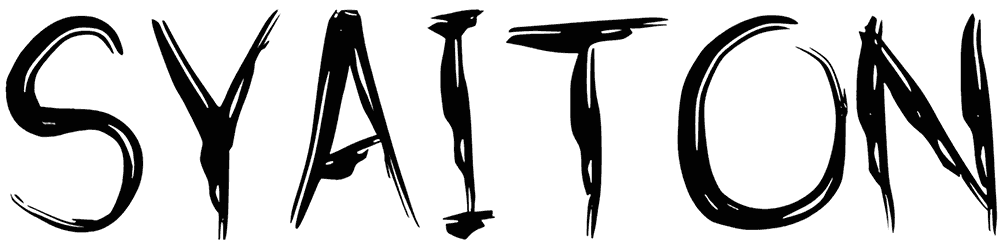
Syaiton Font
Let’s bring an evil and sinister mood to your dread layout with Syaiton. This horror font has an eerie brush lettering face that can convey a deadly and stressful vibe. This brush font doesn’t consist of lowercase letter…
Let’s bring an evil and sinister mood to your dread layout with Syaiton. This horror font has an eerie brush lettering face that can convey a deadly and stressful vibe. This brush font doesn’t consist of lowercase letters and punctuation marks, but rest assured, it can act well to scare viewers of your coming designs, such as movies, games, apparel, posters, and many others like.